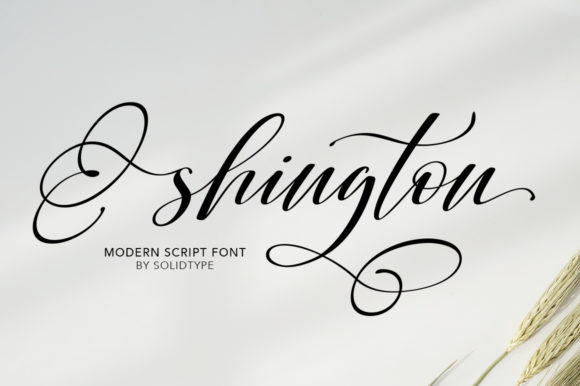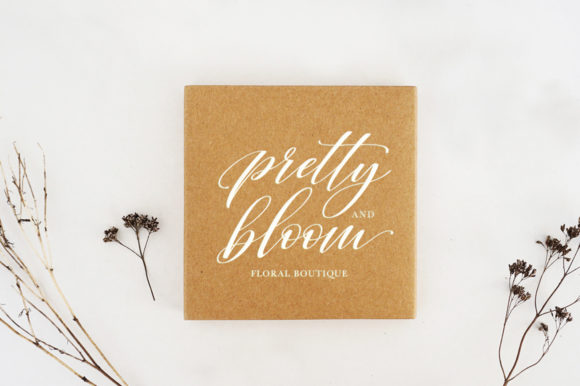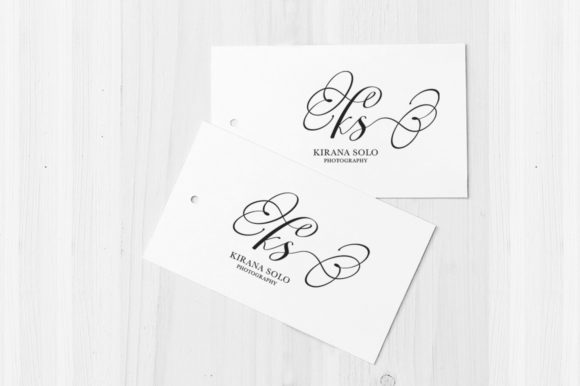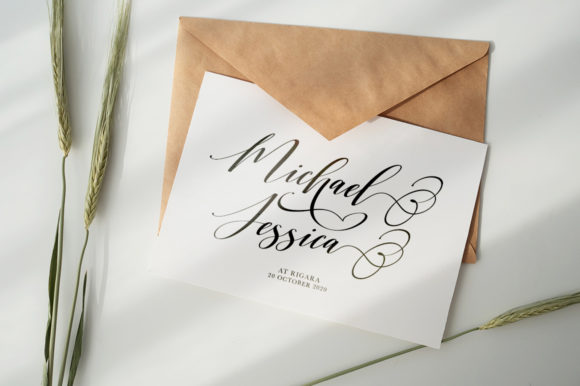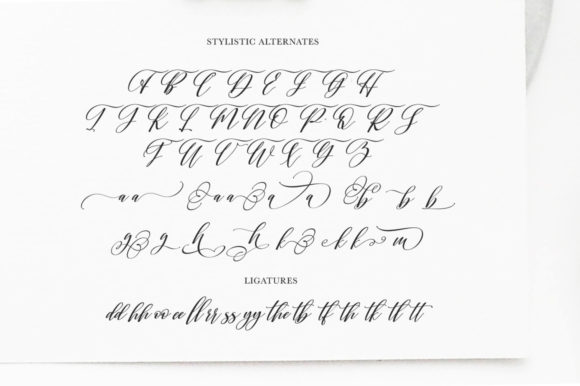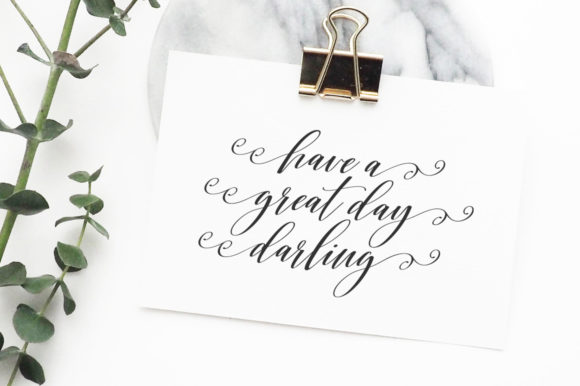
HomeScript FontsShington Script Font Script Fonts Shington Script Font FacebookXPinterestWhatsApp Shington Script Font Poster 2 Shington Script Font Poster 3 Shington Script Font Poster 4 Shington Script Font Poster 5 Shington Script Font Poster 6 Shington Script Font Poster 7 Shington Script Font Poster 8 Shington Script Font Poster 9 About Shington Script Font Shington is a sweet and cool handwritten font with a unique style. DOWNLOAD NOW People also explored Conseration Font Silhouette Font Dameroth Font Claudya Font Farisky Marlline Font Costume Christmas Font Save Her Bsting Font Nona Font 390 0 TagsShington Script Font Previous articleBreyhana FontNext articleReginald Font LEAVE A REPLY Cancel reply Comment: Please enter your comment! Name:* Please enter your name here Email:* You have entered an incorrect email address! Please enter your email address here Website: Save my name, email, and website in this browser for the next time I comment. Personal Use Free Loving Personal Use Free Read more about this font Fadhista Personal Use Free Read more about this font Vivacious Personal Use Free Read more about this font BD Console Personal Use Free Read more about this font BLOG The 10 Best Handwriting Fonts to Add Personality to Your Designs 10 of the Best Handwriting Fonts for Adding Personality to Your Designs There will undoubtedly be no other better choice than handwriting fonts to give... Best Fonts for YouTube Videos: Make Your Thumbnails Stand Out Elegant Wedding Invitation Fonts – Handwritten & Script Fonts To increase your work productivity, choose the most readable fonts.